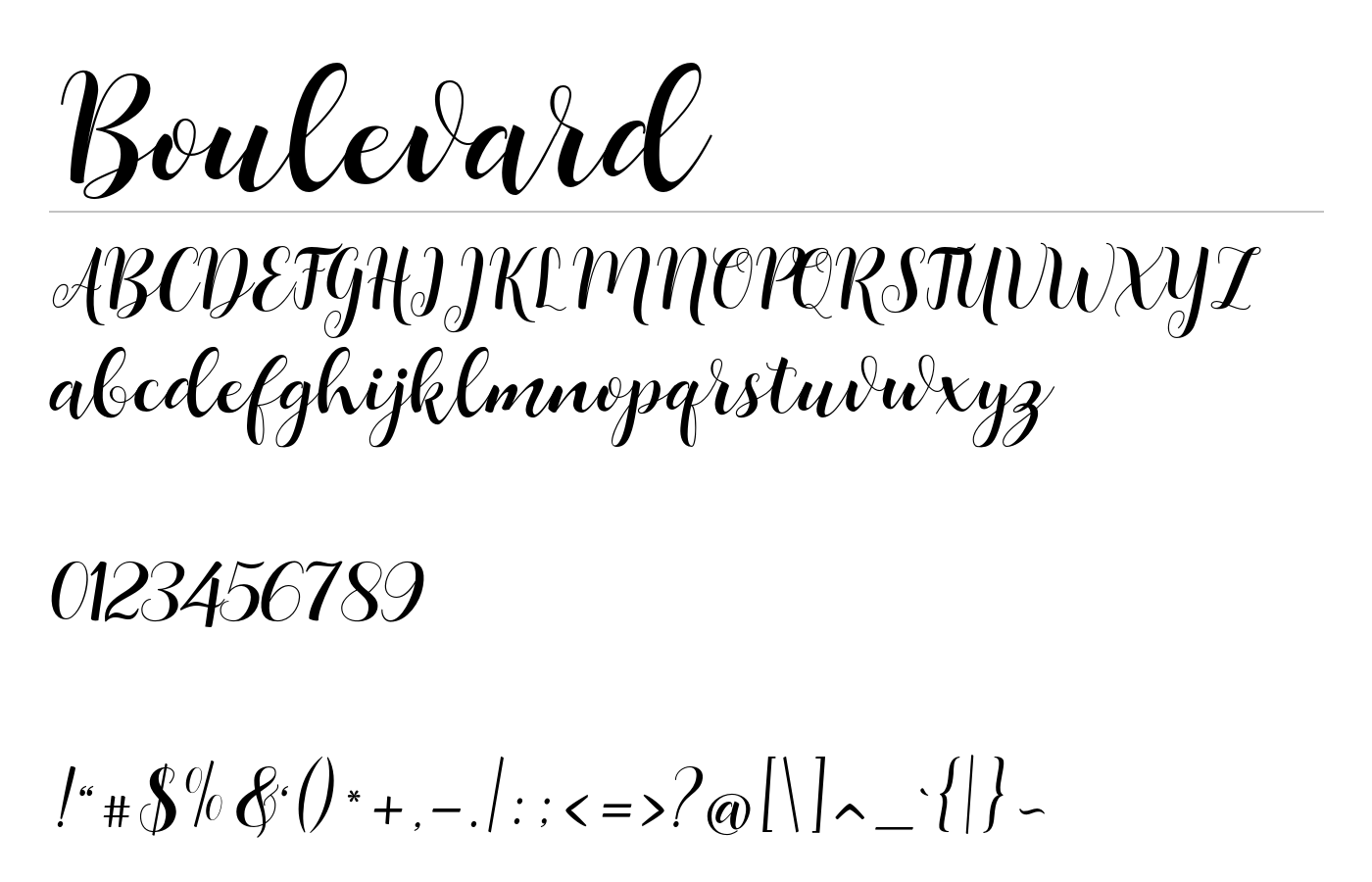
Boulevard is an elegant script font with a stylish, handwritten feel characterized by its fluid, calligraphic strokes and high contrast between thick and thin lines. It exudes a sophisticated and artistic vibe, making it perfect for luxury branding, invitations, and creative headlines where a refined yet personal touch is desired. Its graceful letterforms and decorative swashes give it a distinctive charm that works beautifully in editorial design and upscale packaging.
Boulevard Font
About Boulevard Font
| Font family | Boulevard Font |
| Designer | Unicode Studio |